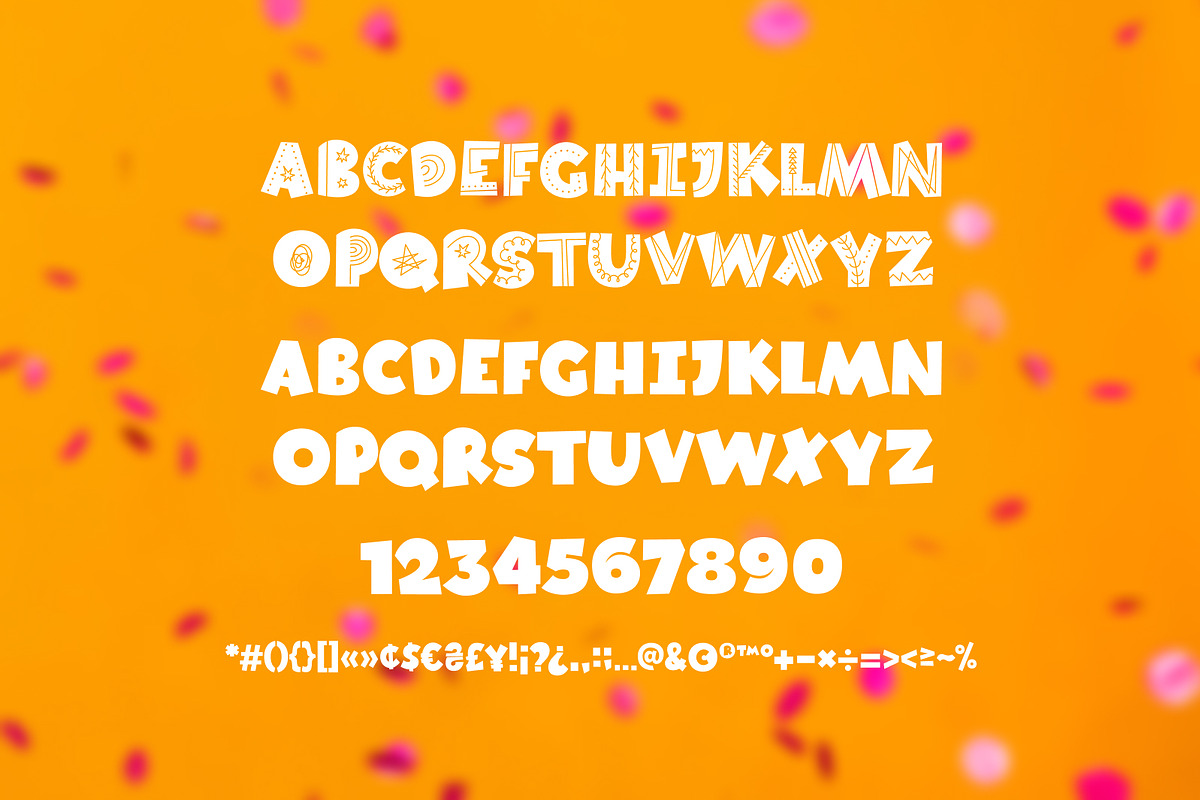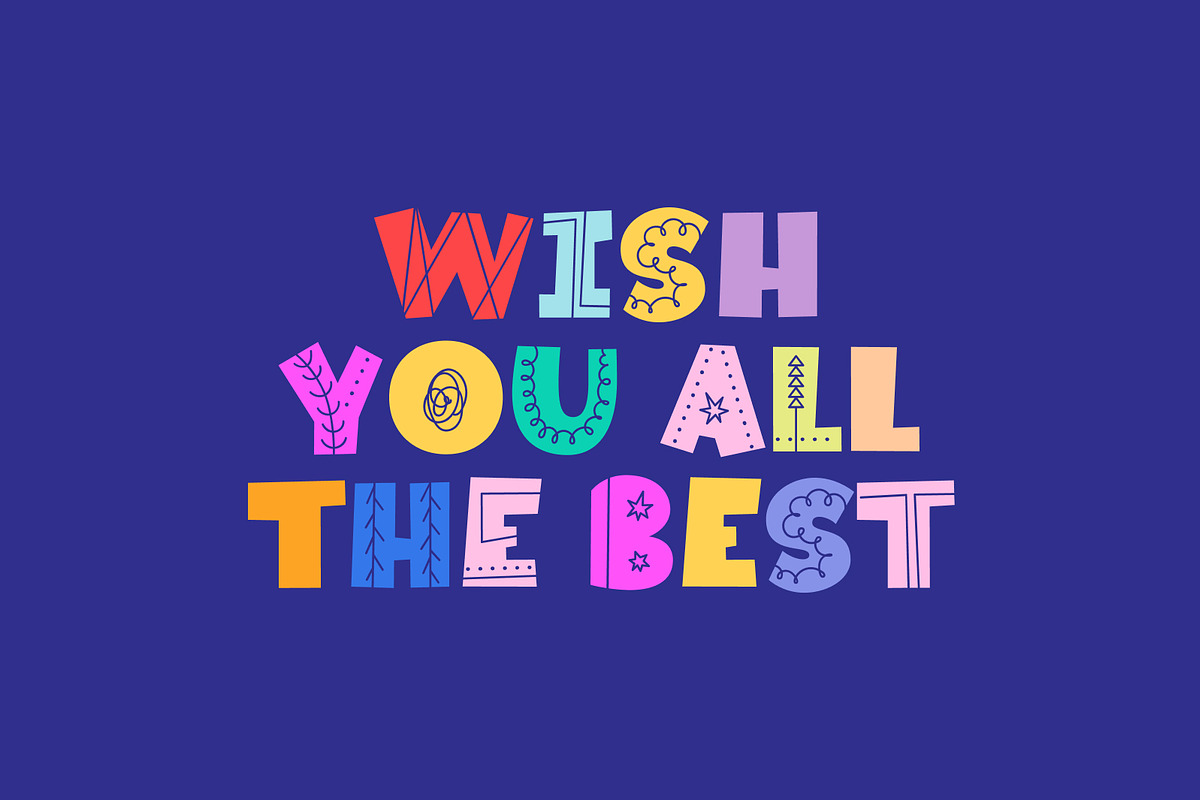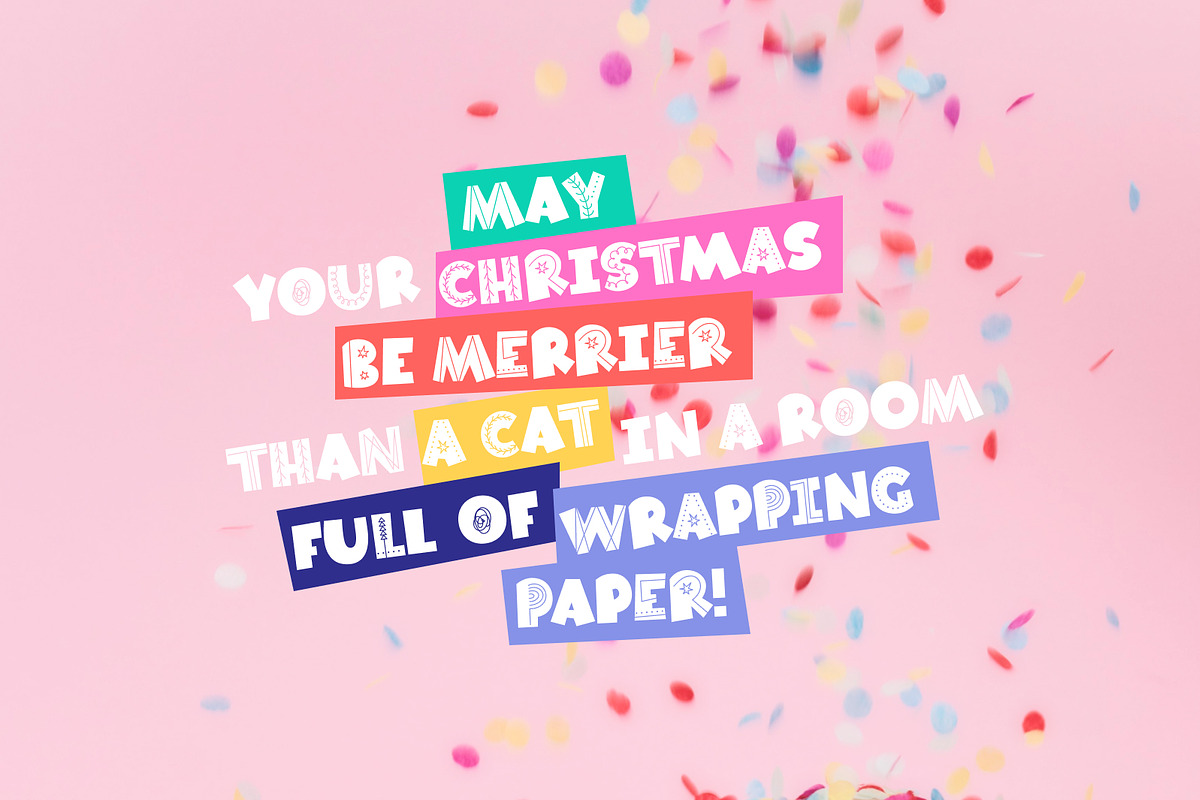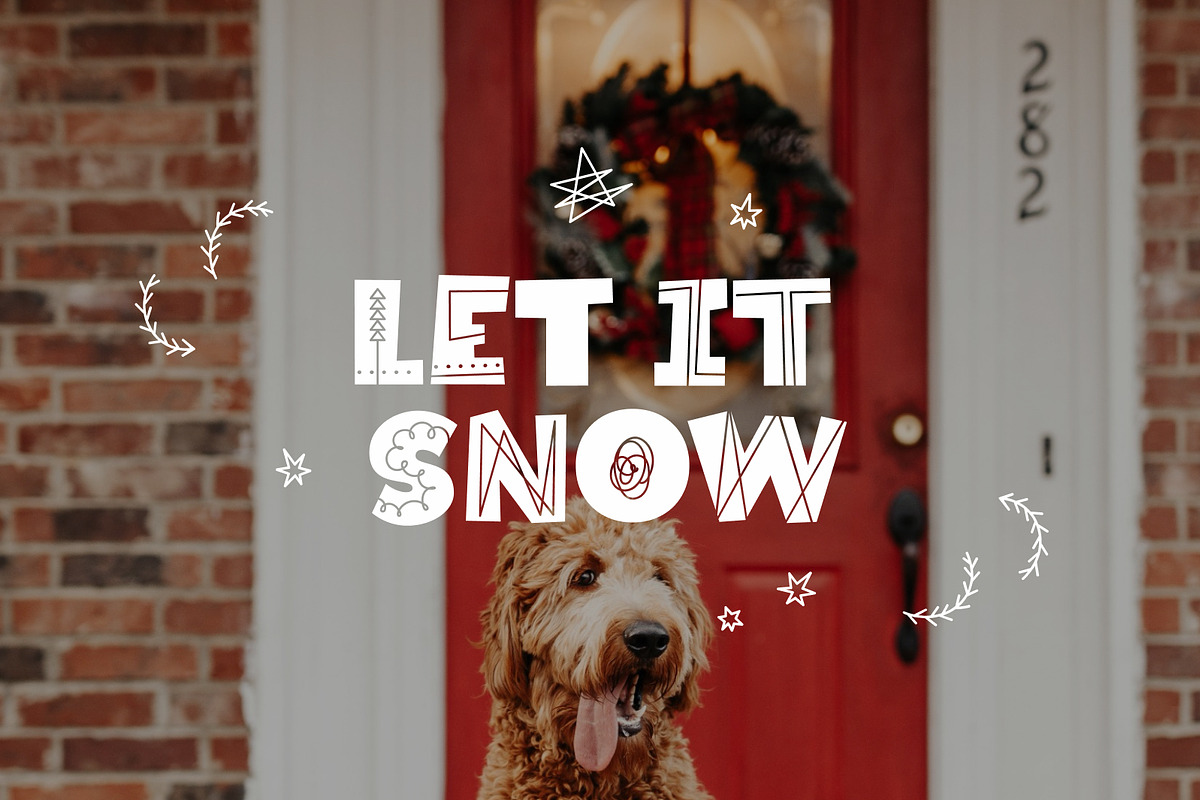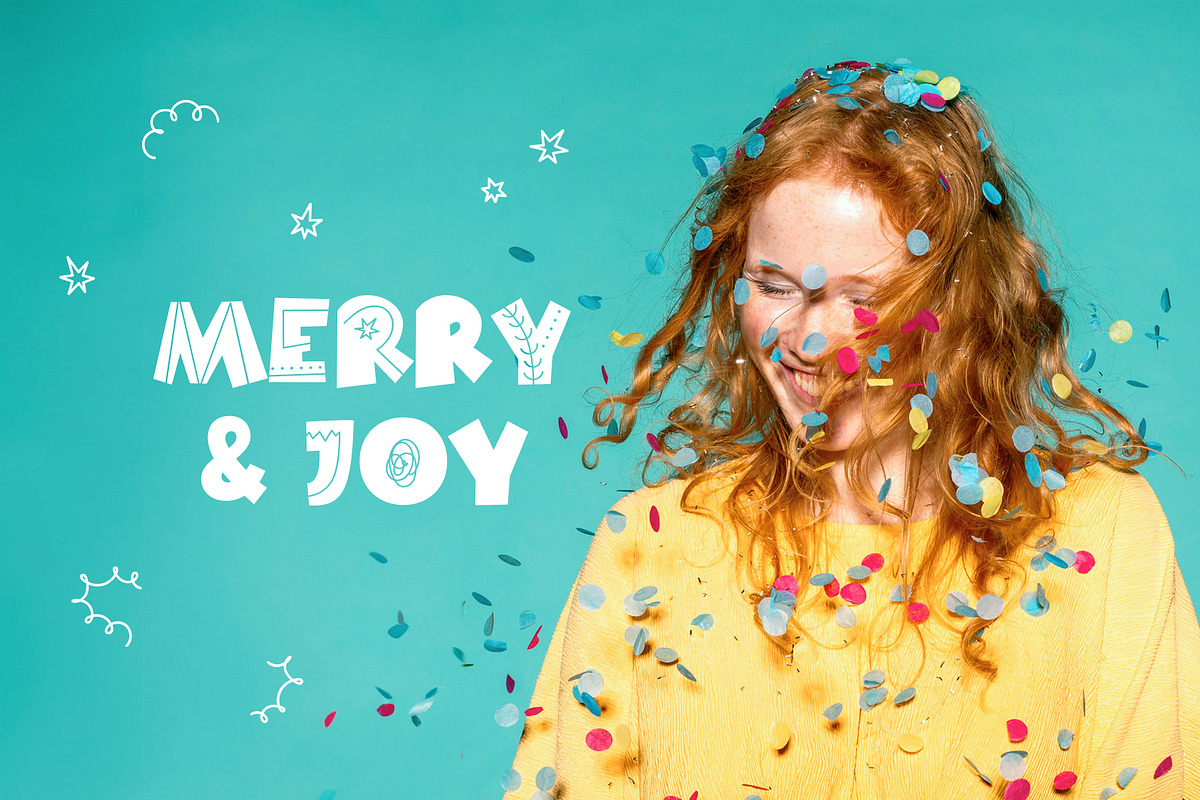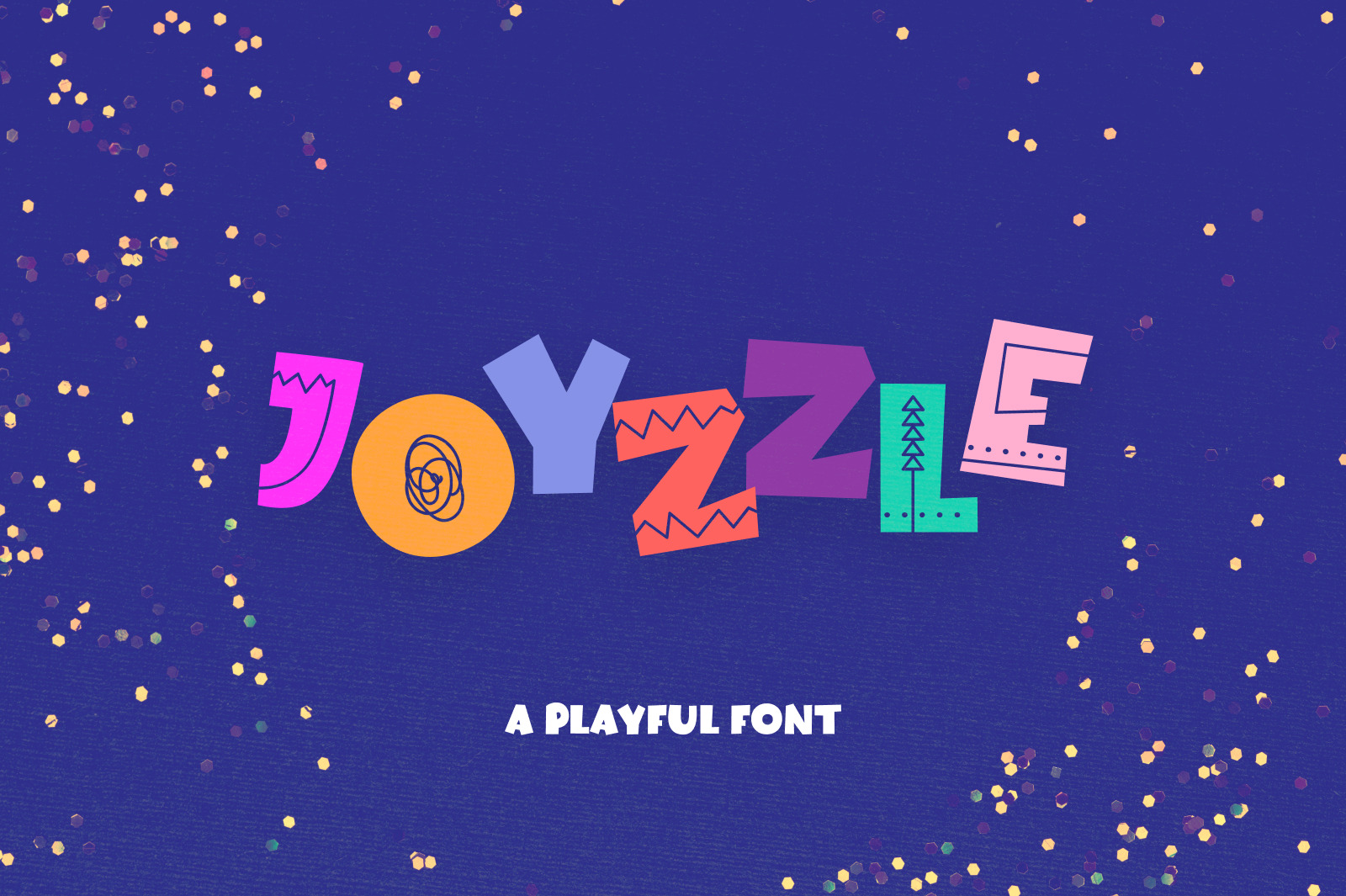
Joyzzle Playful Font
Introducing 'Joyzzle' – a cute decorative font designed to add a playful spirit to your creative projects!
- Joyzzle Font: decorated uppercase and non-decorated lowercase letters, numbers, punctuation and symbols
- Joyzzle-Doodle Font: 26 simple doodle elements, as a bonus :)
With this font at your disposal, you can unleash your creativity on a variety of canvases, from greeting cards and invitations to logos, quotes, phone cases, and kids' T-shirt designs.
So go ahead, let your imagination run wild, and remember to enjoy the process with a cheerful vibe!